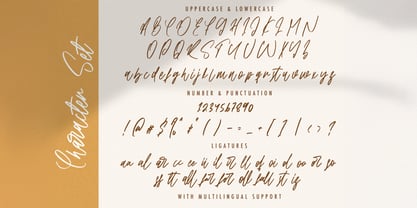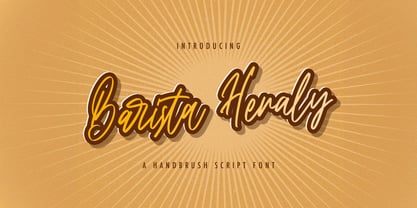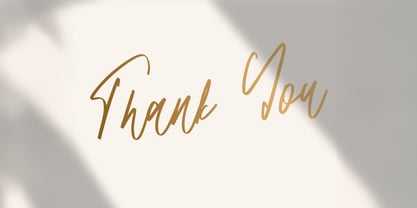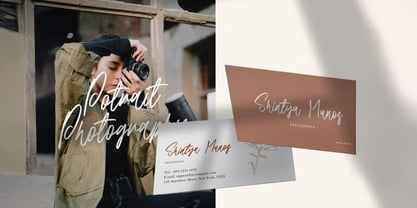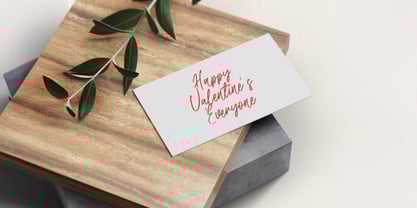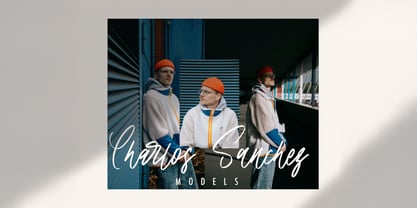
Barista Heraly
by Stringlabs Creative Studio
The Barista Heraly Font Family was designed by Virgiawan Listanto and published by Stringlabs Creative Studio. Barista Heraly contains 1 styles. More about this family
Barista Heraly is a handwritten font brewed with warmth, charm, and a smooth personal touch. With its relaxed flow and organic letterforms, Barista Heraly feels like a handwritten note on your favorite café napkin effortlessly stylish and full of character.
Designers: Virgiawan Listanto
Foundry: Stringlabs Creative Studio